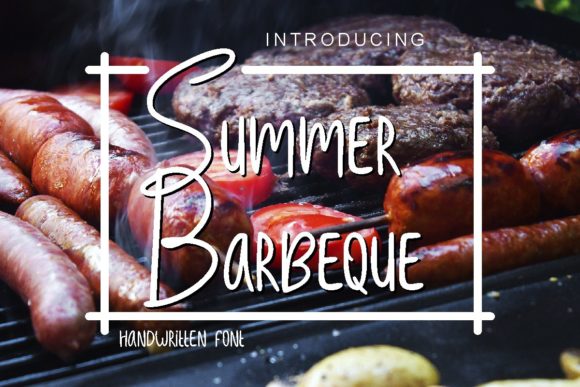
Summer Barbeque Font: A Simple Brand Upgrade
I still remember the afternoon I sat at my kitchen table, surrounded by stacks of plain white boxes and rolls of kraft paper tape. My small online shop was growing, but my branding felt stuck. It was functional, sure, but it lacked soul. I wanted my customers to feel a sense of warmth and personal care the moment they saw their package arrive on their doorstep. I didn’t need a complete rebrand or an expensive agency. I needed a small change that would make a big impact. That is when I discovered Summer Barbeque, a thin and simple handwritten font that completely shifted the visual tone of my business.
Choosing the right typeface is often one of the most overlooked steps for entrepreneurs. We spend hours sourcing materials, perfecting our products, and writing product descriptions, yet we often slap on a default system font for our labels. Typography is the voice of your brand before anyone reads a single word. It sets the mood. For my handmade goods, I needed something that felt authentic, approachable, and slightly imperfect in a charming way. Summer Barbeque fit that description perfectly. It is not just a collection of letters; it is a design asset that brings a natural, human touch to digital and physical spaces.
Finding the Right Mood for Your Brand Identity
The style of Summer Barbeque is best described as effortless. It belongs to the Script Handwritten category, but it avoids the overly swirly or complex decorations that can sometimes hinder readability. Instead, it offers a clean, thin stroke that mimics the look of a fine liner pen or a delicate brush. This simplicity is its greatest strength. In a world where consumers are bombarded with loud, aggressive advertising, a quiet, confident font stands out. It suggests that the brand behind it values clarity and elegance without trying too hard.
When I started using this premium font for my packaging, the difference was immediate. I used it to write short phrases like "Handmade with Love" and "Thank You" on my stickers. The thin lines looked crisp against the textured kraft paper, creating a beautiful contrast that felt high-end yet accessible. This is the power of good typography. It transforms a generic box into a memorable unboxing experience. Whether you are running a bakery, a candle shop, or a boutique clothing line, the mood you project through your brand identity determines how customers perceive your value.
Versatile Uses for Everyday Business Materials
One of the reasons I fell in love with Summer Barbeque is its versatility. It is not limited to just one type of application. As a small business owner, you wear many hats, and your design needs change daily. Here is how I integrated this creative font into various aspects of my workflow:
The key to using a handwritten font effectively is understanding its limits. Summer Barbeque shines in headlines, short phrases, and decorative accents. It is not designed for long paragraphs of body text. For those, I pair it with a clean sans serif font. This combination ensures that the design remains readable while still retaining its personality. For example, on a product label, I might use Summer Barbeque for the product name and a simple geometric sans serif for the ingredients list. This hierarchy guides the customer’s eye and makes the information easy to digest.
Enhancing Readability and Professionalism
A common concern when switching to a script or handwritten style is readability. Will customers be able to read it on a small mobile screen? Will it print clearly on a tiny sticker? With Summer Barbeque, the answer is yes, provided you use it correctly. Because the strokes are thin and the letterforms are distinct, it maintains clarity even at smaller sizes. However, it is always wise to test your designs. Print a sample label and hold it at arm's length. View your social media post on your phone. If the text feels cramped, increase the tracking or size up the font.
Using a consistent typeface across all your touchpoints builds trust. When a customer sees the same font on your Instagram ad, your website, and the package at their door, it reinforces brand recognition. It signals that you are professional and attentive to detail. This consistency turns casual browsers into loyal customers. They know what to expect from you, and that reliability is invaluable in the competitive world of online selling.
Pairing Ideas and Technical Considerations
To get the most out of Summer Barbeque, consider pairing it with complementary fonts. A modern serif font can add a touch of classic elegance, making it ideal for bridal shops or luxury beauty brands. A bold sans serif can create a striking contrast, perfect for cafés or streetwear brands. The goal is balance. Let Summer Barbeque be the star for emotional connection, and let the supporting font handle the informational heavy lifting.